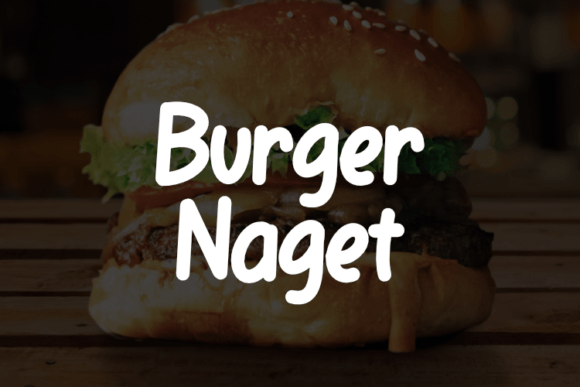
Unlocking Creative Potential with Burger Nuget Font
I’ll never forget the moment I stumbled upon the perfect font for my design project. I was working late, trying to meet a tight deadline, and my client was being super picky about the typography. I had tried countless fonts, but none seemed to fit the vibe they were going for. That’s when I discovered Burger Nuget. It was like a breath of fresh air – the perfect blend of style, versatility, and creativity. In this article, I’ll share my experience with Burger Nuget, and explore its features, uses, and potential.
A Personal Review of Burger Nuget
• Universal Usability: Burger Nuget seamlessly integrates with various design software and platforms, making it a go-to font for any project.
• 💡 OpenType Features: Burger Nuget boasts an impressive range of OpenType features, including glyphs, stylistic alternates, and more.
• 👗 Fashion-Forward: Designed specifically for the fashion industry, this font elevates clothing and t-shirt designs, as well as other artistic endeavors.
While Burger Nuget is an exceptional font, there are a few minor quirks to consider:
• 🤔 Learning Curve: With so many OpenType features, it may take some time to get familiar with the font’s capabilities.
• ⚠️ Overuse: As with any trendy font, using Burger Nuget excessively can lead to a design that’s too stylized or overpowering.
The Backstory of Burger Nuget
Burger Nuget was designed with the fashion industry in mind. Its creator, a passionate typographer, aimed to craft a font that would not only reflect the style and elegance of fashion but also provide a versatile tool for designers. The result is a font that’s both fashionable and functional.
Font Name Burger Naget Font
Author Eric Kusuma
What is Burger Nuget designed for? Burger Nuget is specifically designed for the fashion industry, making it perfect for clothing and t-shirt designs, as well as other artistic endeavors.
Is Burger Nuget suitable for body text? While Burger Nuget is primarily designed for display purposes, its legibility and style make it suitable for short paragraphs or captions.